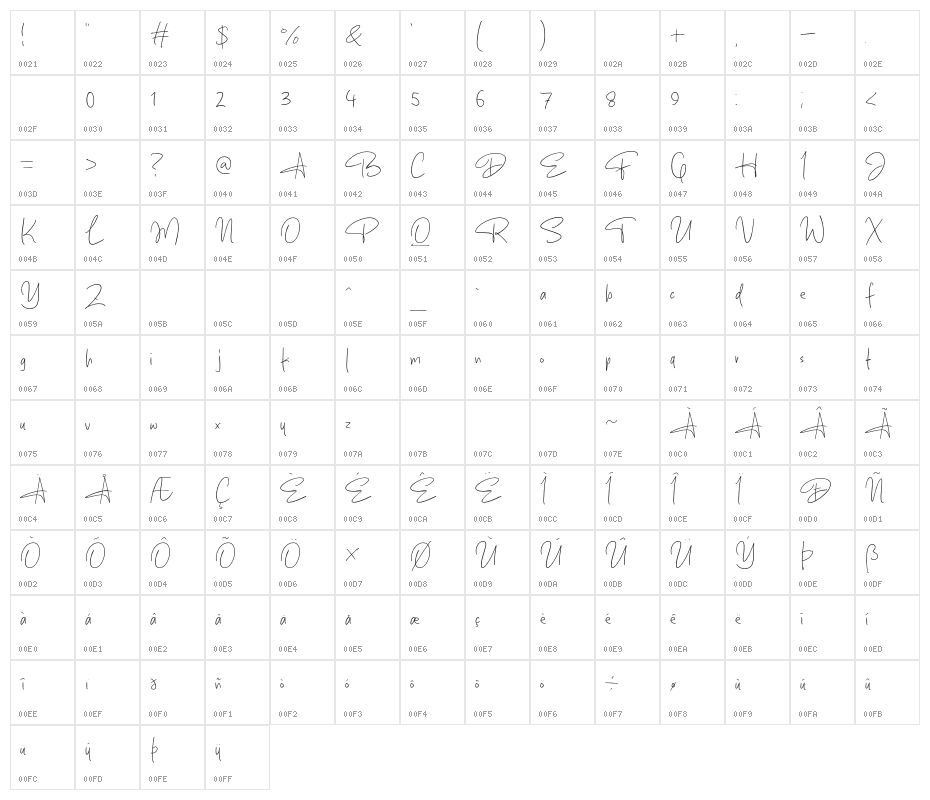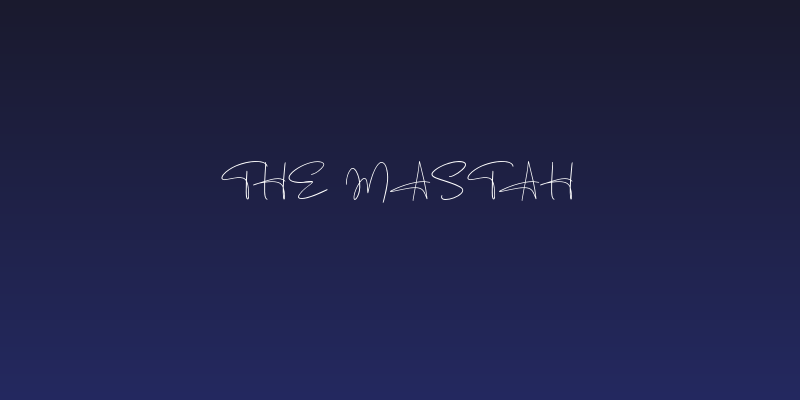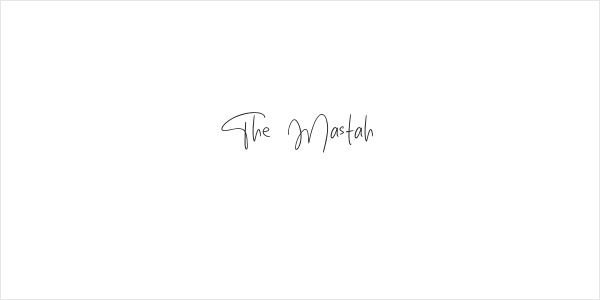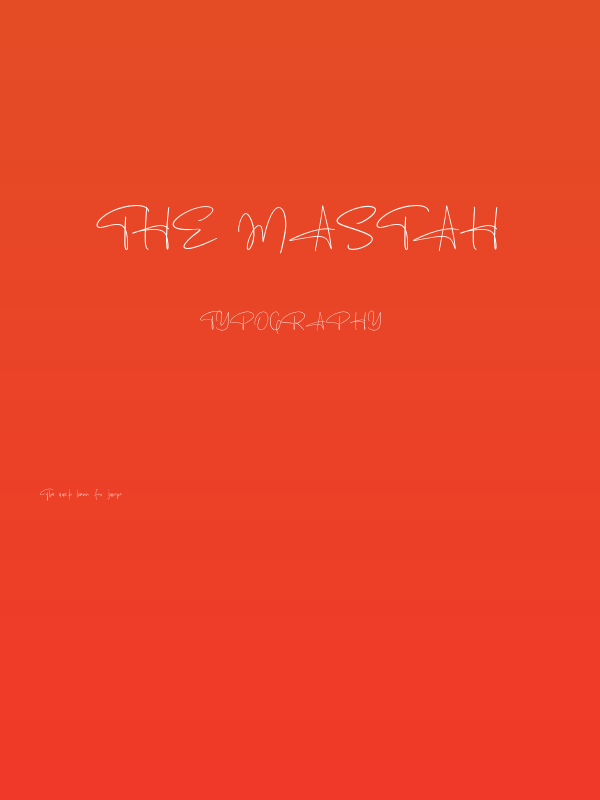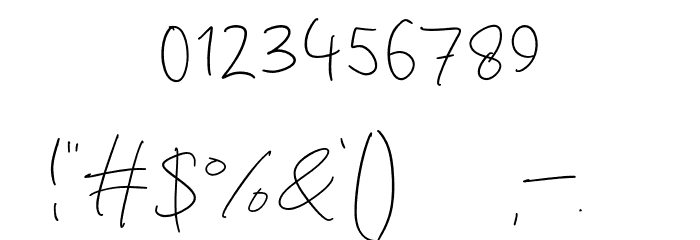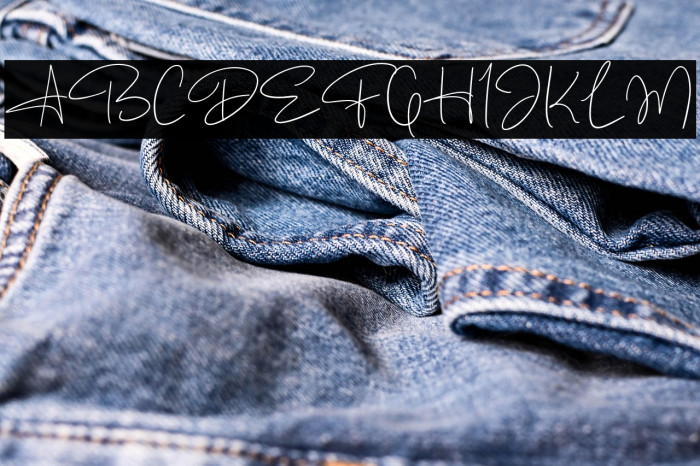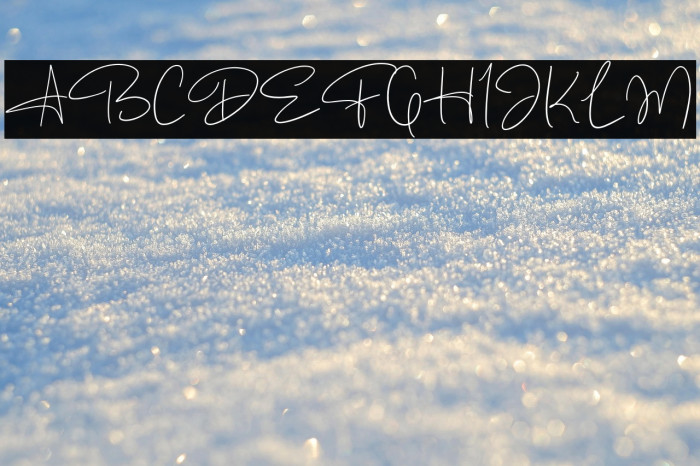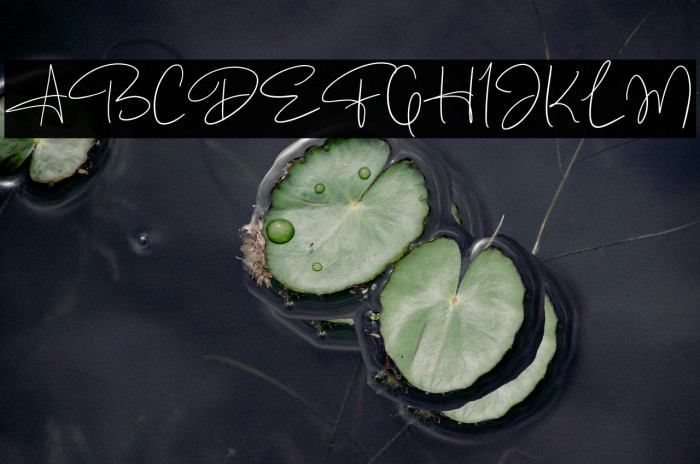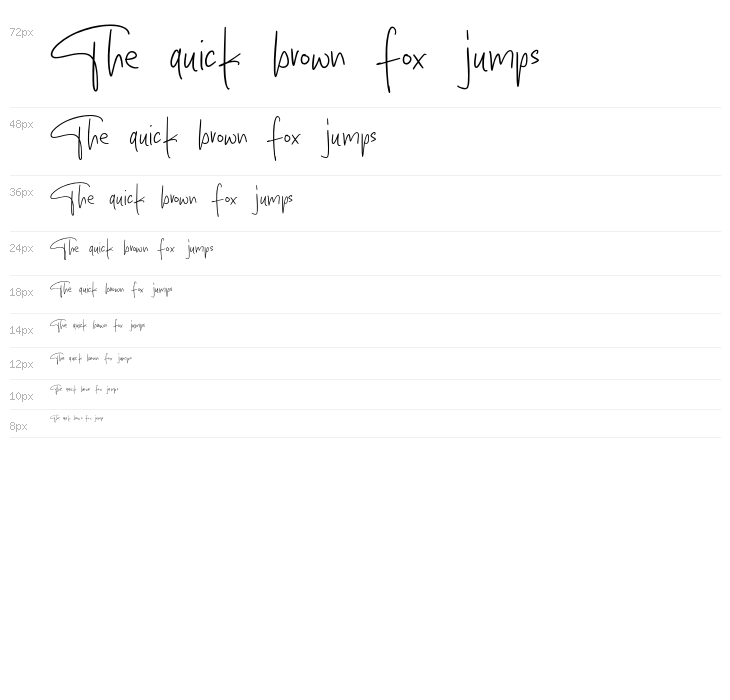
The Mastah Font
The Mastah Description
This font features a playful and whimsical handwritten style, characterized by its flowing and interconnected strokes. The uppercase letters are bold and expressive, with a slight slant that adds a dynamic feel. The lowercase letters maintain a consistent style, with elongated ascenders and descenders that enhance the font's casual elegance. The numerals are clear and legible, matching the overall aesthetic. Special characters are creatively designed, maintaining the font's unique personality. This font is perfect for projects that require a personal touch, such as invitations, greeting cards, and creative branding.
| Overall Style | Whimsical |
| Use Case | Logos, Invitations, Greeting Cards |
| Proposed Projects | Ideal for invitations, greeting cards, creative branding, and personal projects. |